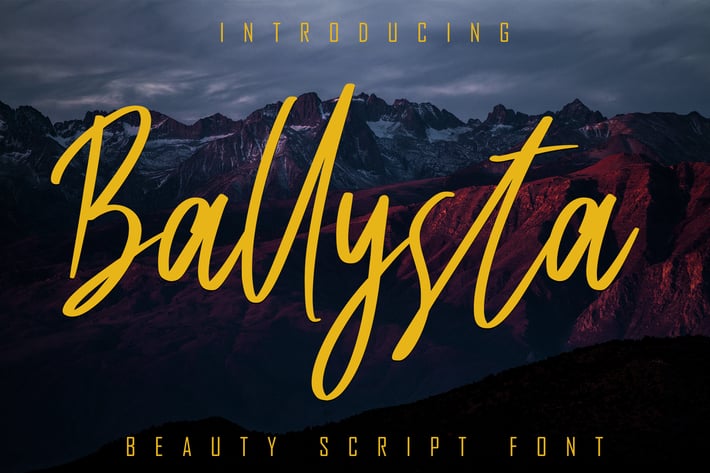
Ballysta Beauty Script Font
Ballysta Beauty Script Equipped with uppercase, lowercase letters, numbers, punctuation, and so many variations on each character including alternative opentype such as Standard Ligature. Perfect for use for Logotype, Letterhead, Posters, Clothing Designs, Labels, quotes and more
Ligature\
Basic Latin Language Support (AÀÁÂÃÄÅCÇDÐEÈÉÊËIÌÍÎÏÑOØÒÓÔÕÖUÙÜÚÛWYÝŸÆß )